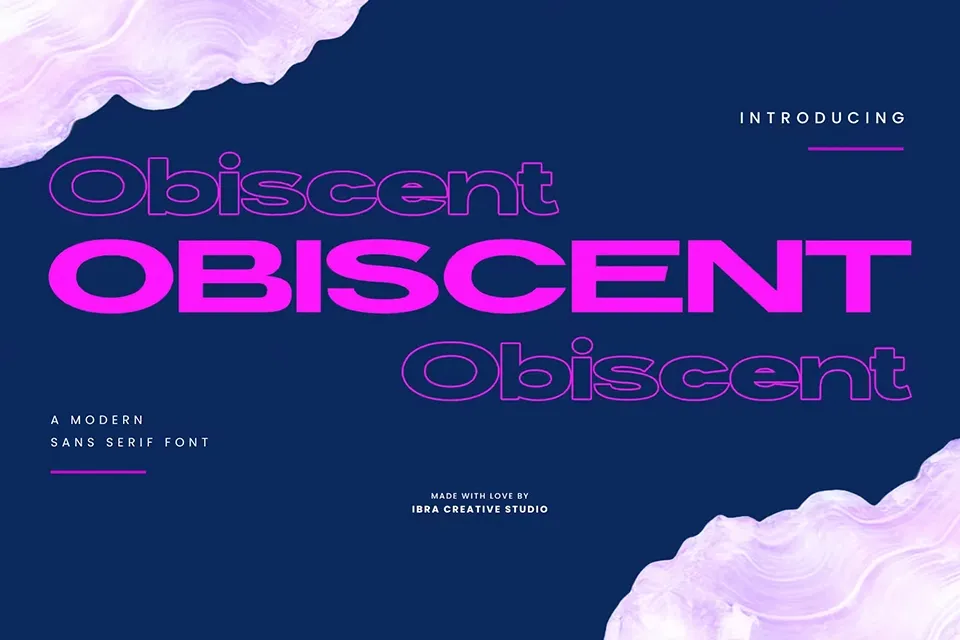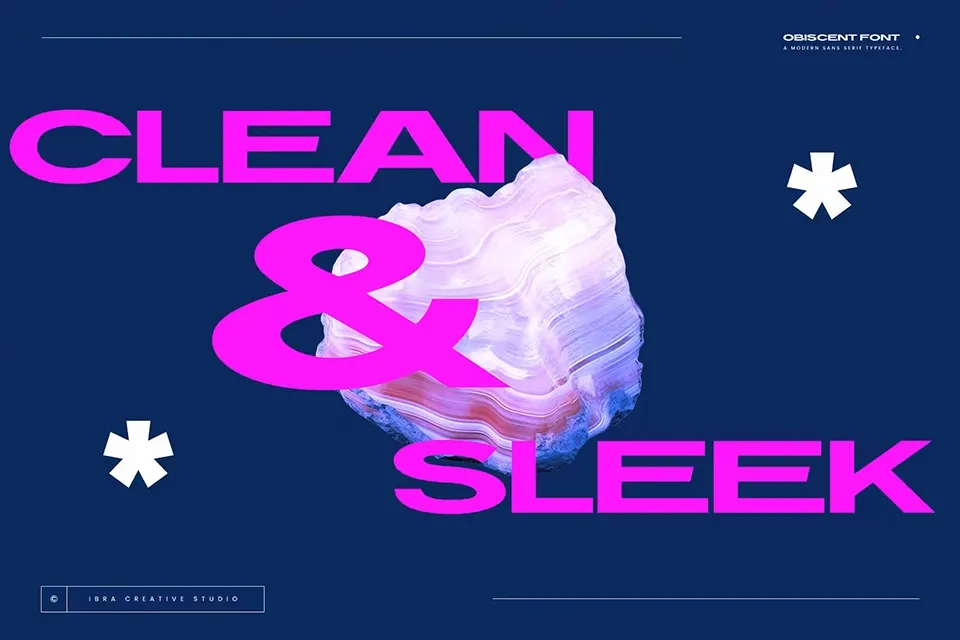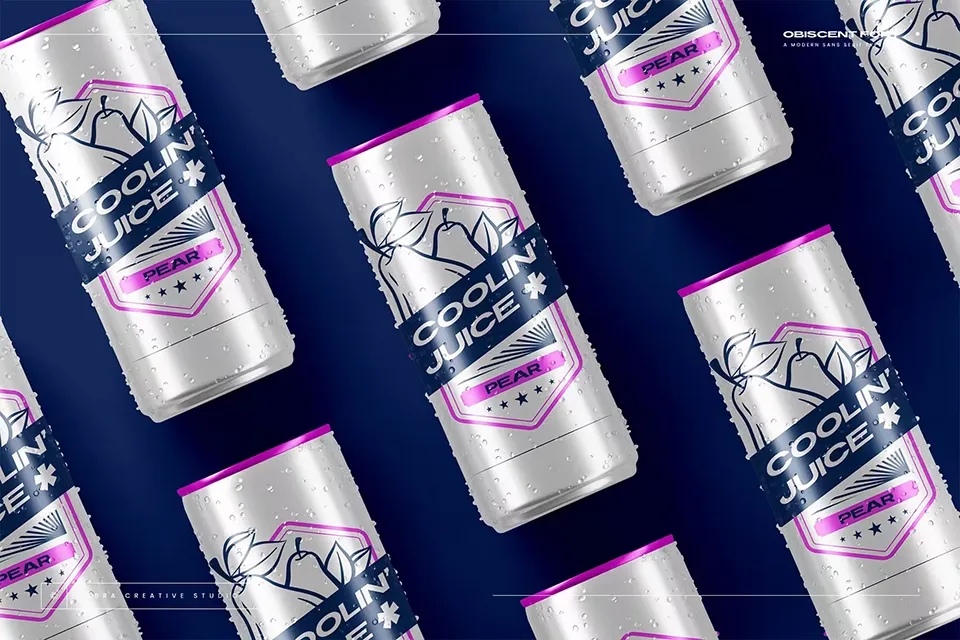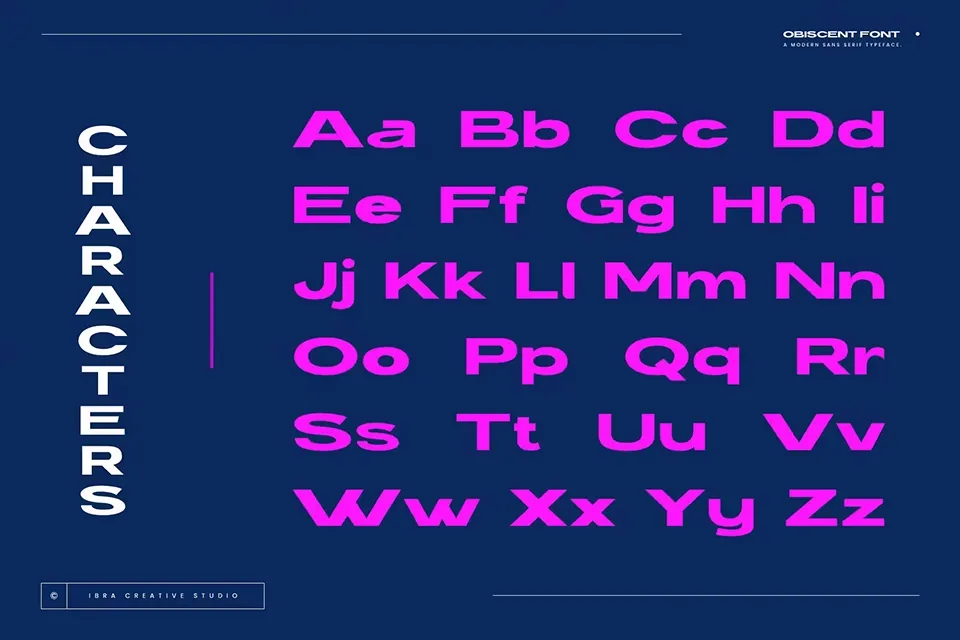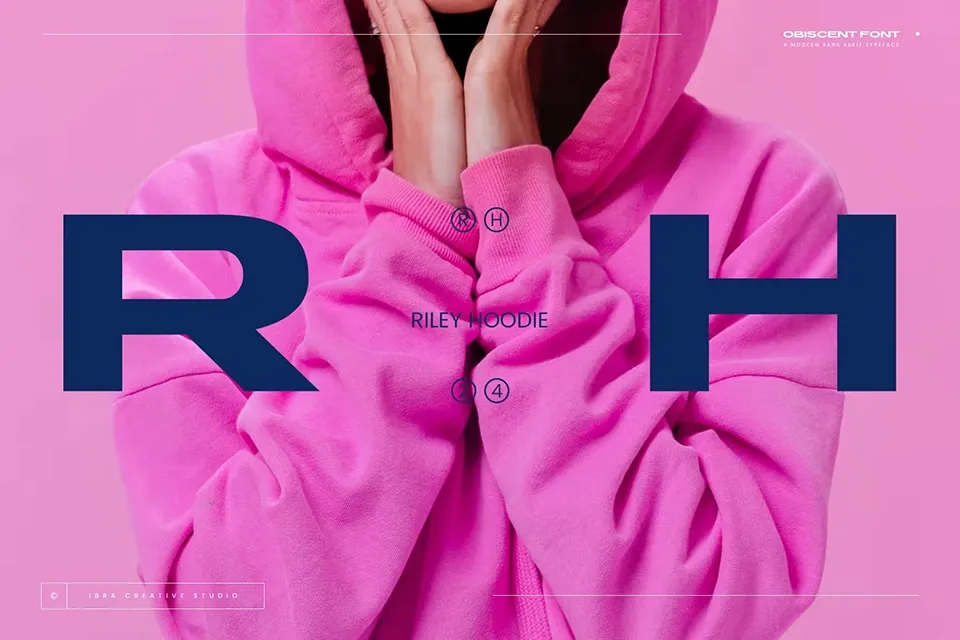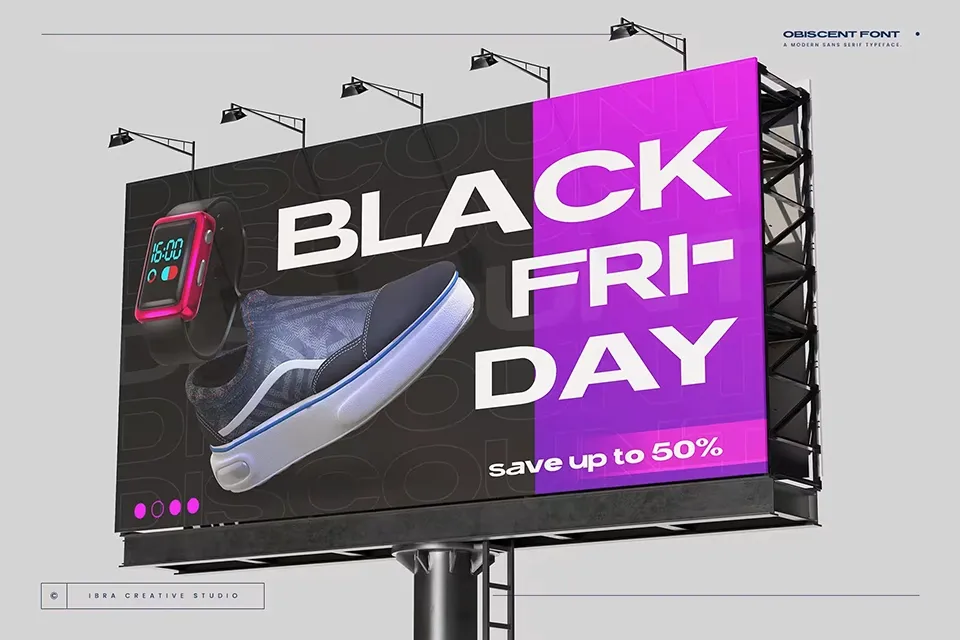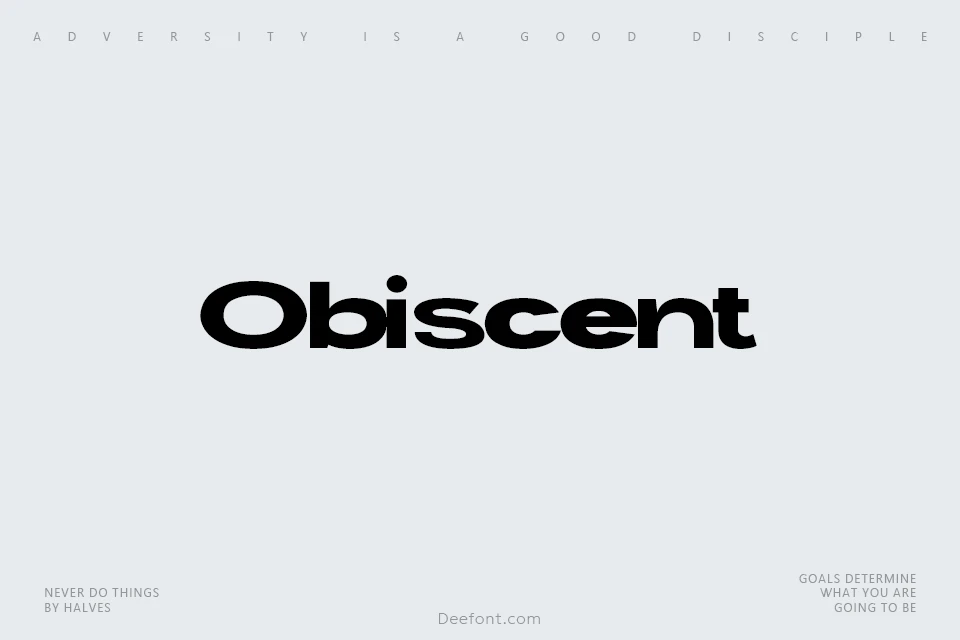
Obiscent Font
Obiscent Font is a modern sans-serif typeface designed to make a bold and stylish statement. With its clean lines, geometric precision, and contemporary aesthetic, this font is perfect for branding, headlines, posters, and digital designs. Obiscent offers versatility with its sleek letterforms, making it suitable for both professional and creative projects. The font’s sharp and confident design ensures readability while adding a touch of sophistication to any text. Whether used for bold displays or minimalist layouts, Obiscent Font brings a fresh and dynamic energy to your designs. Crafted by Ibra Creative Studio, it’s a powerful choice for impactful typography.